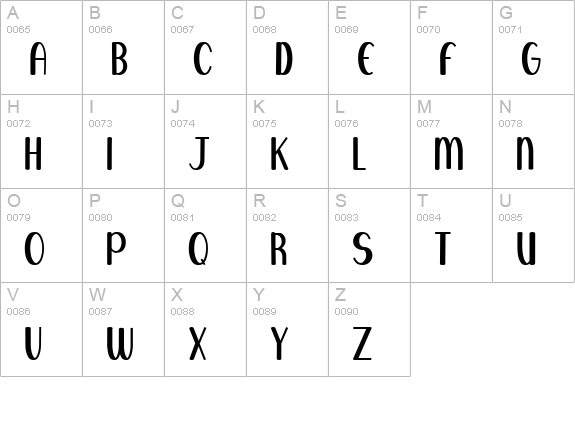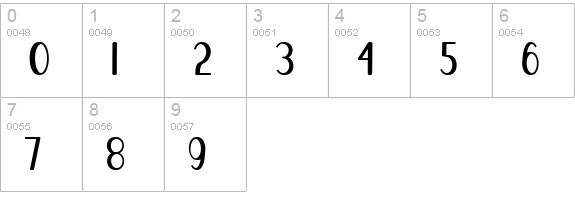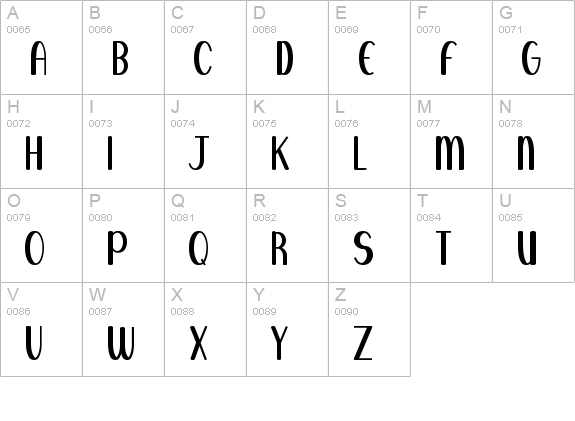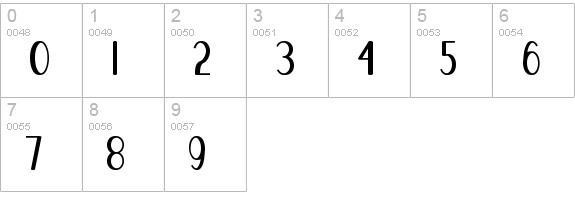
Blue Melody UltraBold is an extra-heavy, attention-grabbing variant in the Blue typeface family \xE2\x80\x94 well suited to high-impact headlines, posters, and bold branding.
Blue Melody UltraBold font is a visually striking typeface that commands attention with its bold and assertive design. Its thick strokes and sleek curves make a powerful statement, perfect for headlines, titles, and branding projects that require a strong and modern aesthetic. What sets Blue Melody UltraBold font apart is not just its captivating design, but also the fact that it is available for free download at FontsMarket.com. This means that you can easily access and use this impressive font for your creative projects without any cost or restrictions. Whether you're designing a poster, logo, or website, Blue Melody UltraBold font offers a versatile and impactful option that will make your text stand out and leave a lasting impression. With its bold presence and contemporary style, Blue Melody UltraBold font is a must-have addition to any designer's toolkit. Download it for free today and elevate your designs with this eye-catching and distinctive typeface.